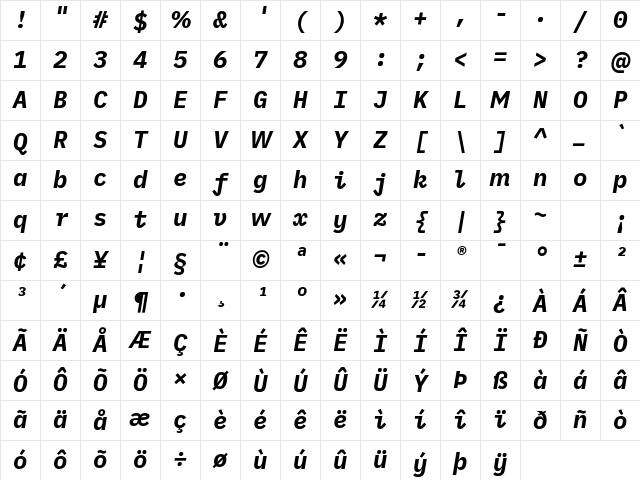
iA Writer Duospace BoldItalic Free Font
iA Writer Duospace BoldItalic
Foundry: Bold Monday
Designer: Mike Abbink, Bold Monday, modified by Oliver Reichenstein
Design Context for iA Writer Duospace
iA Writer Duospace is a composed and adaptable typeface that performs quietly and consistently across a wide range of design contexts. The slanted form adds forward momentum and visual energy. Its bold stroke weight gives it real presence on the page.